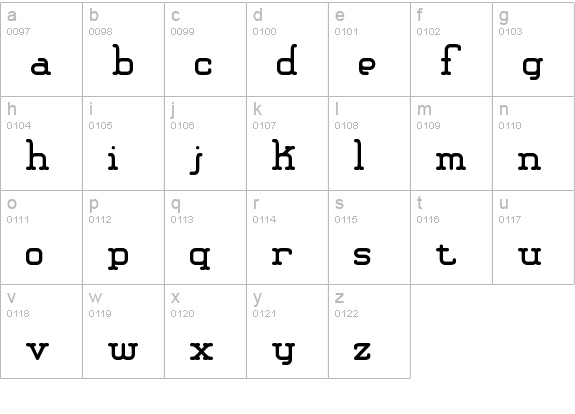
Amplitude BRK Font Details
Amplitude BRK font is a modern and versatile typeface that exudes elegance and sophistication. Its sleek lines and sharp edges make it perfect for a wide range of design projects, from branding to editorial design. With its unique character and bold presence, Amplitude BRK font demands attention and adds a touch of contemporary flair to any creative endeavor. The best part? Amplitude BRK font is completely free to download at FontsMarket.com. Now you can elevate your designs with this stunning typeface without breaking the bank. Whether you're working on a logo, poster, or website, Amplitude BRK font will surely make a statement and leave a lasting impression on your audience. Download it today and unleash your creativity with this exceptional font!